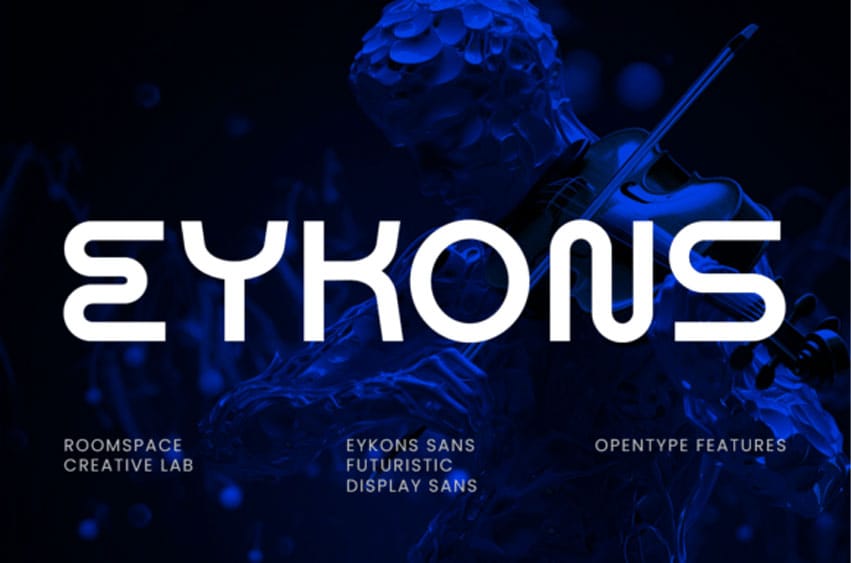
Eyekons Font is a modern, futuristic sans-serif font designed to bring boldness and clarity into every project. With its geometric precision and strong personality, this typeface blends luxury aesthetics with a contemporary digital vibe, making it stand out in today’s visual landscape.
Each character in Eykons is carefully crafted with clean lines, balanced proportions, and optimized kerning to ensure perfect readability. Its versatile style works seamlessly across both large headlines and smaller text applications. With OpenType features and multilingual support, this font is built to give designers flexibility and professional results.
Perfect for tech-inspired logos, modern branding, editorial layouts, social media graphics, and packaging, Eykons adapts to any creative need. Whether you want to design sleek digital interfaces or impactful posters, this typeface offers both style and strength. Add Eykons to your font collection today and give your designs a futuristic edge.
Eykons font is also PUA-encoded, ensuring effortless access to all glyphs, swashes, and alternate characters to help you customize your creations with ease.